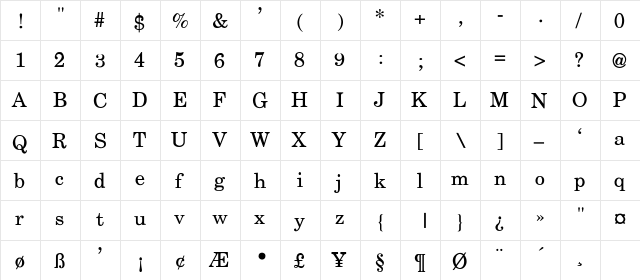
CenturySchoolbook-Thin Regular
Design Context for CenturySchoolbook-Thin Typeface
CenturySchoolbook-Thin takes a measured approach to typography — its balanced proportions and neutral character make it a reliable workhorse for both digital and print work. Its slender proportions lend an understated elegance to any composition.